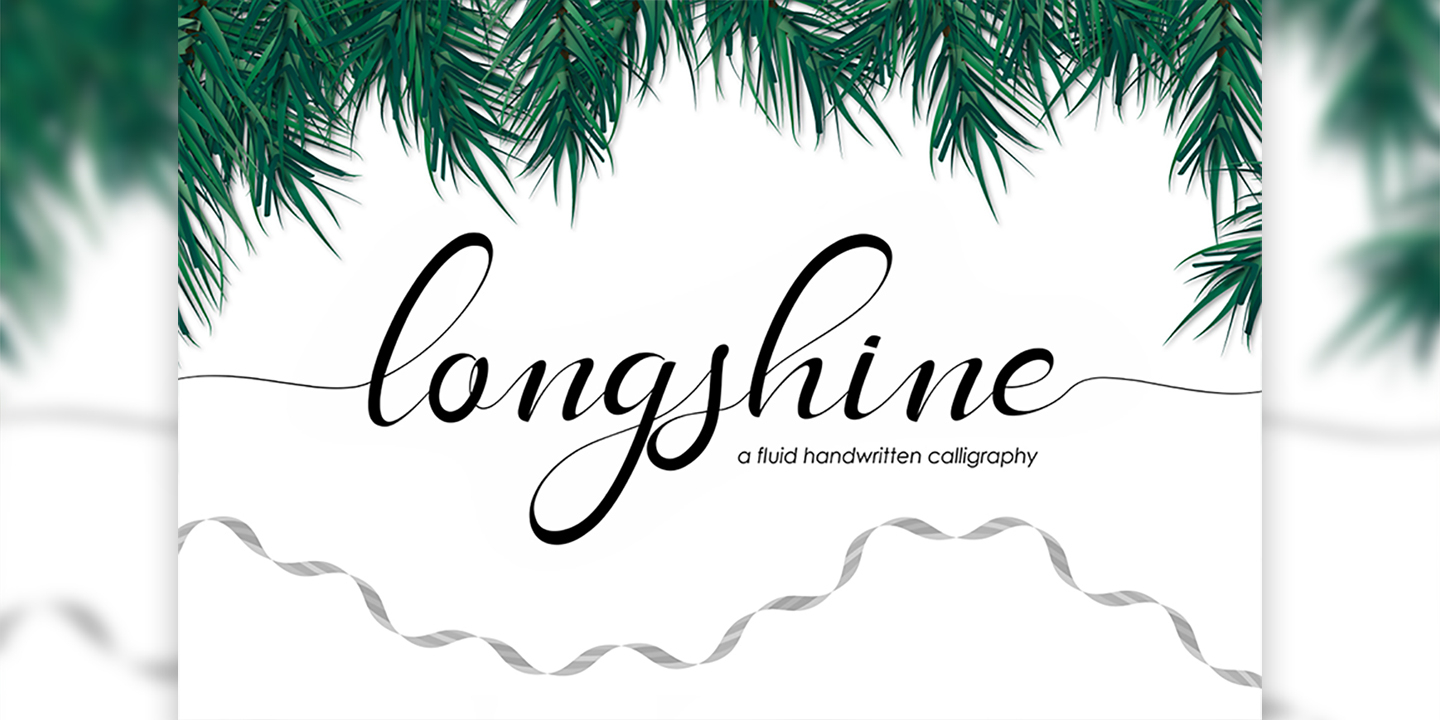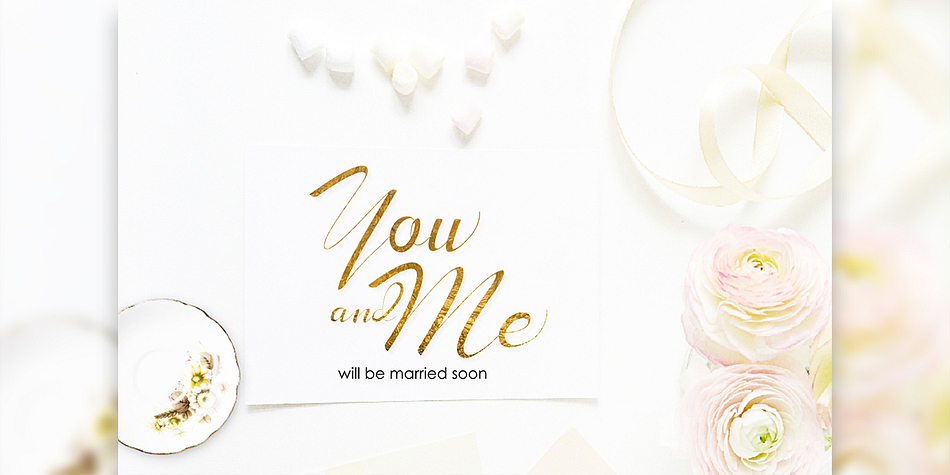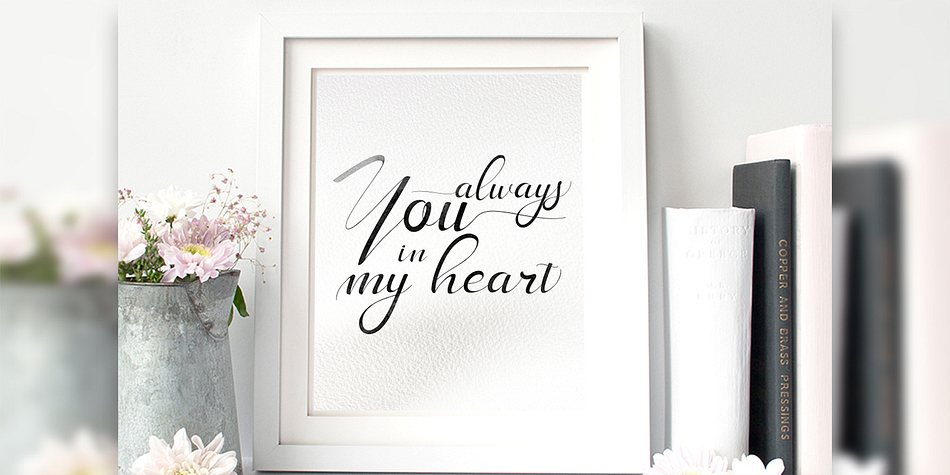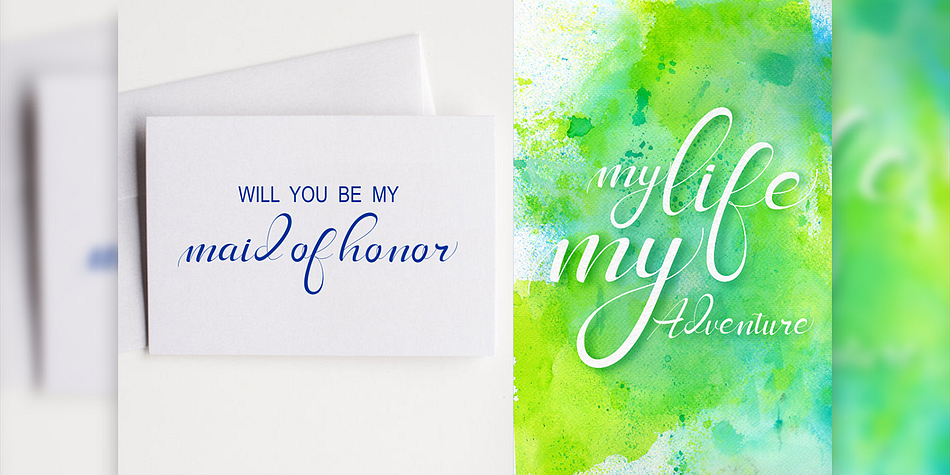
Long Shine is a script and modern calligraphy font published by Bonjour Type.
Long Shine Script is a fluid handwritten calligraphy font, combining calligraphy with a free flowing and moving baseline. It has a casual, yet elegant touch.
Long Shine comprises 275 glyphs - including initial and terminal letters, alternates, ligatures and multiple language support.
It can be used for various purposes such as headings, signature, logos, wedding invitation, t-shirt, letterhead, signage, labels, news, posters, badges etc.